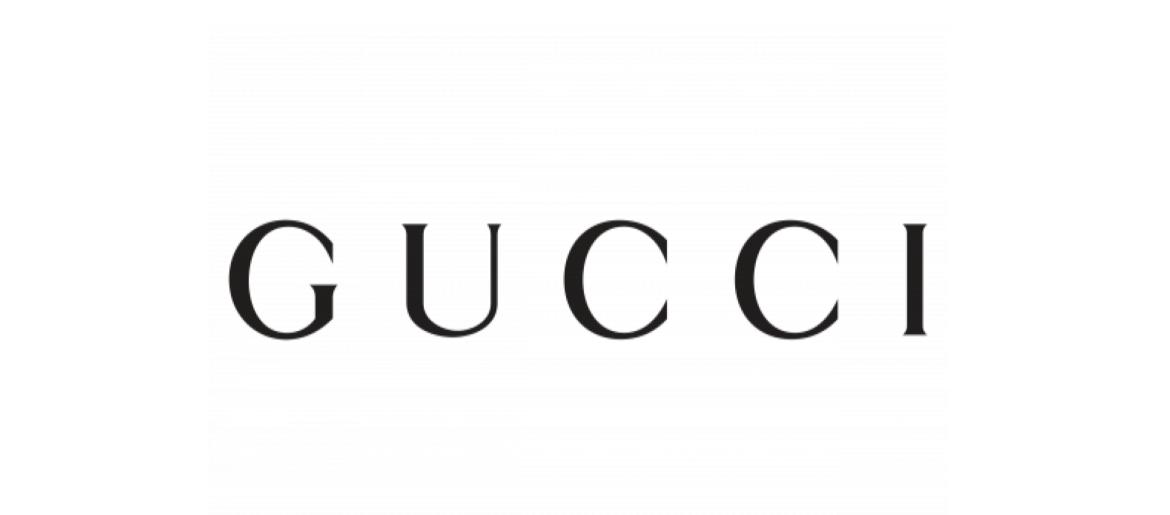
Gucci Font
Gucci Font is a defining part of the brand’s iconic identity, symbolizing elegance, heritage, and luxury. The Gucci logo font appears on products, packaging, and advertisements worldwide, making it instantly recognizable in the fashion industry.
About Gucci
Gucci is one of the world’s most prestigious fashion brands, founded in Florence, Italy, in 1921. Known for its luxury clothing, accessories, and leather goods, Gucci has built a reputation for combining Italian craftsmanship with bold, innovative designs. The brand represents elegance, sophistication, and timeless style, making it a symbol of luxury and high fashion globally.